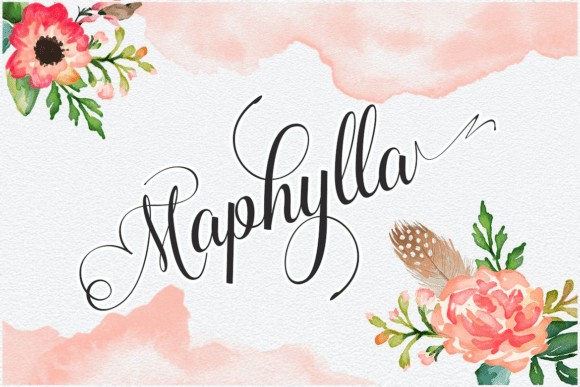
Maphylla Typeface for Elegant Campaigns
The clock was ticking down to our seasonal launch, and the creative deck felt flat. We had high-quality product photography and a solid value proposition, but the visual hierarchy lacked soul. The headlines were shouting, not inviting. That is when I pulled Maphylla from our library of design assets. Within minutes, the entire mood of the campaign shifted from generic to graceful. This experience reinforced why choosing the right script font is not just an aesthetic decision; it is a strategic move that defines how your audience perceives your brand identity.
Maphylla is an exquisite modern calligraphy typeface that defines sophistication through its delicate, elongated swashes and airy letterforms. It captures the grace of classical penmanship while maintaining the clean lines required for digital visibility. For marketers and content creators, this balance is critical. You need a font that stops the scroll on Instagram but remains legible on a mobile thumbnail. Maphylla delivers both, acting as a premium font that elevates simple messages into memorable visual statements.
Transforming Social Media Graphics with Airy Elegance
In our recent workflow, we used Maphylla to build a cohesive series of Instagram posts and Pinterest pins. The challenge with social media graphics is often clutter. Users are bombarded with bold, heavy sans serif fonts and aggressive colors. By introducing Maphylla, we created negative space and visual breathing room. The airy letterforms allowed the product images to shine while the typography added a layer of luxury.
For quote graphics and teaser posts, the elongated swashes of Maphylla act as natural framing devices. They guide the eye across the image without overwhelming the core message. When designing for platforms like Pinterest, where vertical real estate is key, the vertical flow of this script font complements the layout perfectly. It turns a standard promotional graphic into something that feels editorial and curated. This approach helps in building brand recognition, as the consistent use of such a distinct typeface makes your content instantly identifiable in a crowded feed.
Enhancing Readability in Digital Ads and Thumbnails
A common misconception about script fonts is that they sacrifice readability for style. However, Maphylla proves that a creative font can be both beautiful and functional. When we applied it to YouTube thumbnails and digital ad banners, we were mindful of size and contrast. The key is using Maphylla for short headlines, callouts, or campaign labels rather than body text.
For mobile screens and fast-scrolling feeds, clarity is paramount. We found that Maphylla works best when paired with a clean sans serif font for supporting information. This font pairing creates a strong visual hierarchy. The script handles the emotional hook—words like "Exclusive," "New," or "Limited"—while the sans serif provides the factual details. On dark backgrounds, the light strokes of Maphylla pop effectively, provided you ensure sufficient contrast. On light backgrounds, its delicate nature adds a subtle touch of class without appearing washed out. This versatility makes it a reliable choice for various digital marketing channels, from email banners to landing page headers.
Strategic Application in Brand Campaigns
Integrating Maphylla into a broader campaign requires a strategic mindset. It is not just about slapping a pretty font on an image; it is about aligning the typeface with the brand’s voice. In our case, the brand aimed for sophistication and warmth. Maphylla’s modern typography style bridged the gap between traditional elegance and contemporary minimalism.
We used it for a webinar promotion series, where the goal was to convey expertise without intimidation. The handwritten feel of the font made the event feel personal and accessible, while the polished structure maintained professionalism. Similarly, for an online shop campaign, we used Maphylla for product category headers and sale announcements. The result was a cohesive look that felt premium yet approachable. This consistency across touchpoints—from web design elements to packaging design mockups—strengthens the overall brand identity.
Practical Tips for Using Script Amp Fonts
When working with any Script Amp font, including Maphylla, there are technical considerations to keep in mind to ensure smooth execution in your design workflow. First, always check the included styles and alternates. Maphylla likely offers various ligatures and swash options that can customize the look of specific words. Using these alternates prevents repetitive patterns and adds a bespoke touch to your logo design or headline text.
Second, verify the file formats and multilingual support if you are targeting a global audience. Ensuring the font supports the necessary characters prevents layout breaks in international campaigns. Third, and most importantly, review the commercial font licensing. Whether you are using the font for client campaigns, digital products, or merchandise, understanding the license terms protects your business and respects the creator’s work. Maphylla is designed for professional use, making it a safe bet for commercial projects when properly licensed.
Finally, consider the context of editorial design and modern typography trends. While Maphylla is stunning, it should not be overused. Reserve it for moments that require emphasis or emotional connection. Use it for the hero section of a website, the title of a lead magnet, or the cover of a digital guide. By treating it as a display font rather than a workhorse for body copy, you maintain its impact and ensure that every instance of its use feels special and intentional.
In conclusion, Maphylla is more than just a set of letters; it is a tool for clearer, stronger communication. It helps marketers cut through the noise by offering a visual language that is both sophisticated and human. Whether you are preparing a launch graphic, designing a thumbnail, or building a week of campaign posts, this typeface provides the elegance needed to make your message resonate. By combining its delicate swashes with strategic design principles, you can create campaigns that are not only seen but felt.